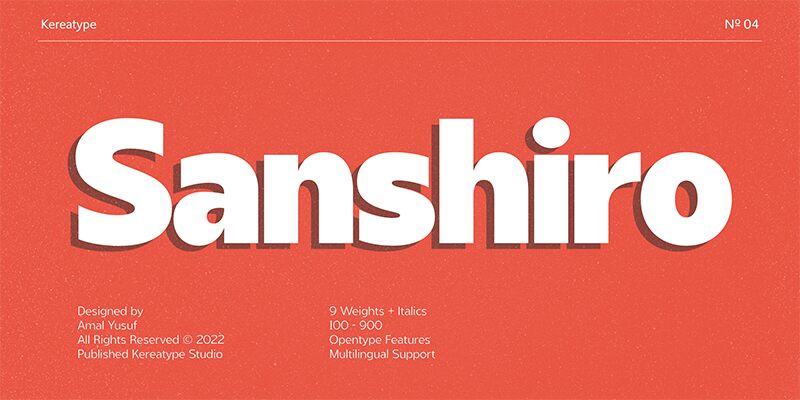
Sanshiro Display Black Italic
Sanshiro Display Black Italic is an extra-bold sans serif font designed by Kereatype Studio. This stunning typeface is perfect for projects that require a strong and bold display font, such as headlines, logos, posters, and branding materials. Its clean and modern design makes it suitable for a wide variety of projects - from fashion to tech to beauty. The italicized version adds a touch of elegance and sophistication to any design, making it perfect for luxury brands or high-end products. With its bold weight and unique style, Sanshiro Display Black Italic is sure to make your designs stand out from the crowd.